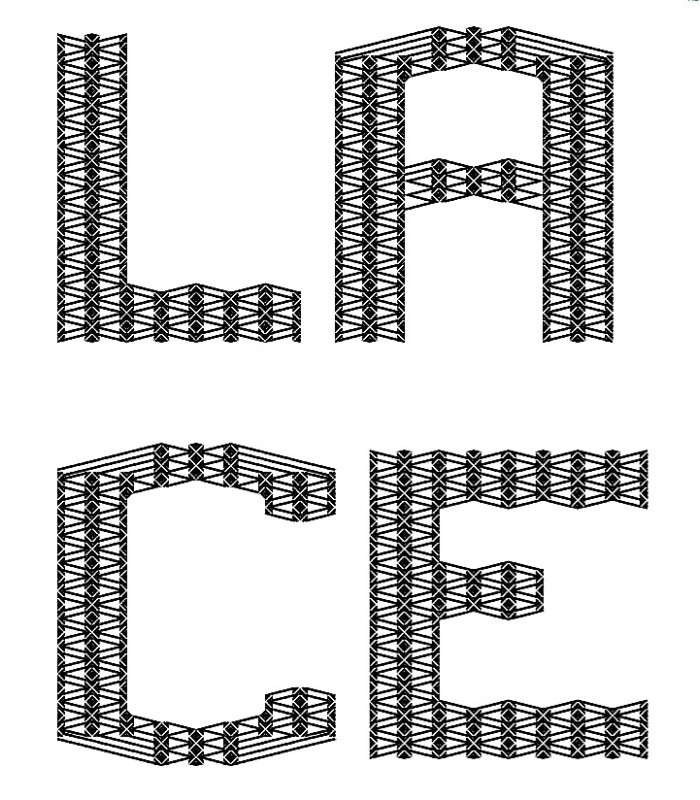
An idea I had when working on tool*tutorial 1:4/4:1 which looked like it could give interesting designs. I decided to take some of the compo blocks from letter "P"and assemble them to make Reticella.
@Aeolien - While this beautiful design replicates a very elegant lace, at certain pixel sizes it also looks like construction girders to me. ;^)